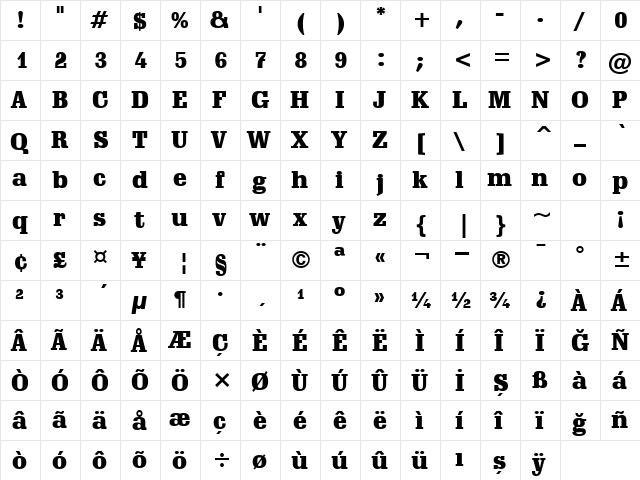
00635 Regular
Design Context for 00635 Typeface
00635 offers clean, dependable letterforms without strong stylistic allegiance, making it a practical choice for designers who need flexibility.